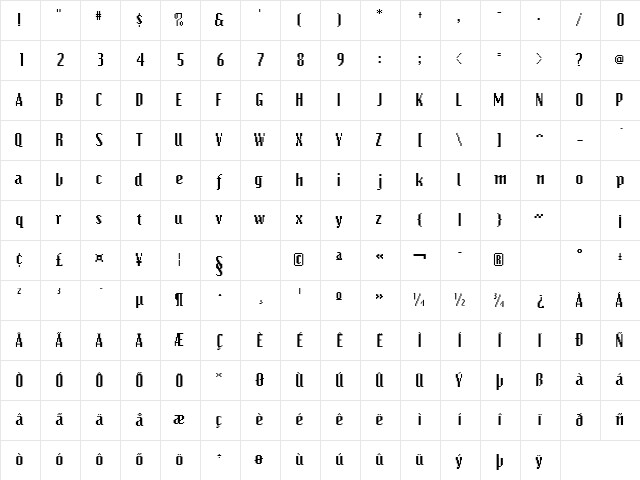
BitsExtended Regular Free Font
BitsExtended Regular
Design Context for BitsExtended
BitsExtended is a composed and adaptable typeface that performs quietly and consistently across a wide range of design contexts.